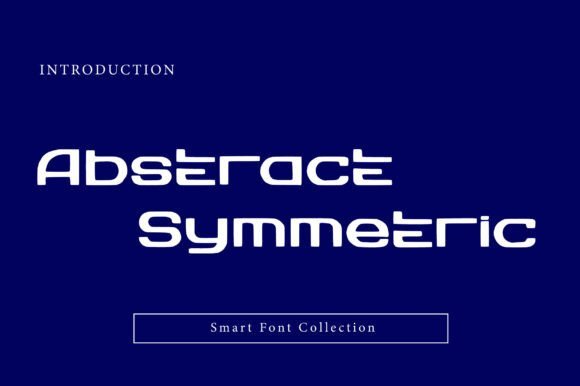
Unlocking the Power of Futuristic Typography
Have you ever stared at a sleek sci-fi movie title sequence, mesmerized by the futuristic typography that transports you to another world? That’s the magic of typography in action – a clever combination of shapes, lines, and forms that can evoke emotions and create a lasting impression. For designers looking to tap into this creative potential, the Abstract Symmetric Font is a powerful tool in their arsenal.
This modern display typeface is designed with strong symmetry and clean structural balance, making it perfect for logos, technology branding, gaming titles, and modern digital artwork. With its unique symmetrical construction, the Abstract Symmetric Font delivers a bold, high-tech visual identity that stands out in contemporary graphic design projects.
Abstract Symmetric Font Key Features
- Font Family: Abstract Symmetric Font is a sans-serif font family, designed to provide a clean and modern look.
- Character Set: Supports a wide range of languages, including Latin, Cyrillic, and Greek alphabets, with over 800 glyphs.
- Unique Characteristics: The font features a unique, symmetrical design with a focus on geometric shapes, making it ideal for modern and minimalist designs.
- Font Width: Offers a range of font widths, from ultra-light to extra-bold, allowing for versatility in design applications.
Designer Review: Abstract Symmetric Font
Overall, I’m impressed with the Abstract Symmetric Font. ✨ The font’s unique design offers a fresh take on symmetry, creating an eye-catching visual effect that’s perfect for modern designs. The font’s versatility shines through in its various styles, from bold to light, making it suitable for a wide range of applications.
- ✨ The font’s abstract design adds a touch of sophistication to any project.
- ✨ The various styles available make it easy to find the perfect fit for your design.
- ✨ The font’s symmetry creates a sense of balance and harmony.
However, there are a few limitations to consider. ⚠️ The font may not be suitable for projects that require a high level of readability, as the abstract design can make it difficult to distinguish between certain letters.
- ⚠️ The font may not be ideal for large blocks of text.
- ⚠️ Some users may find the font’s design too avant-garde for their taste.
Overall, I’m impressed with the Abstract Symmetric Font. While it may have some limitations, its unique design and versatility make it a great addition to any designer’s toolkit. With a little creative thinking, this font can add a touch of elegance and sophistication to even the most mundane designs.
Abstract Symmetric Font Practical Application Guide
Abstract Symmetric Font is ideal for:
- Creating visually striking headlines and titles.
- Adding a touch of elegance and sophistication to your designs.
- Creating unique and eye-catching visual effects.